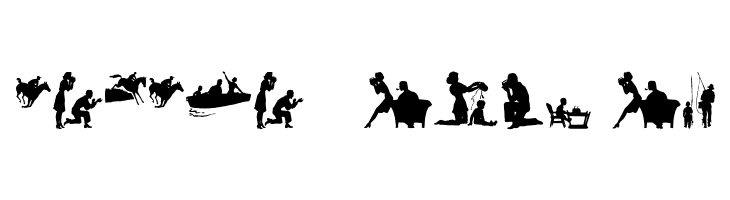
stillframes Font
Font by Emerald City Fontwerks - Steven J. Lundeen - www.speakeasy.org/~ecf/
A pictorial silhouette font with narrative scenes for each character.